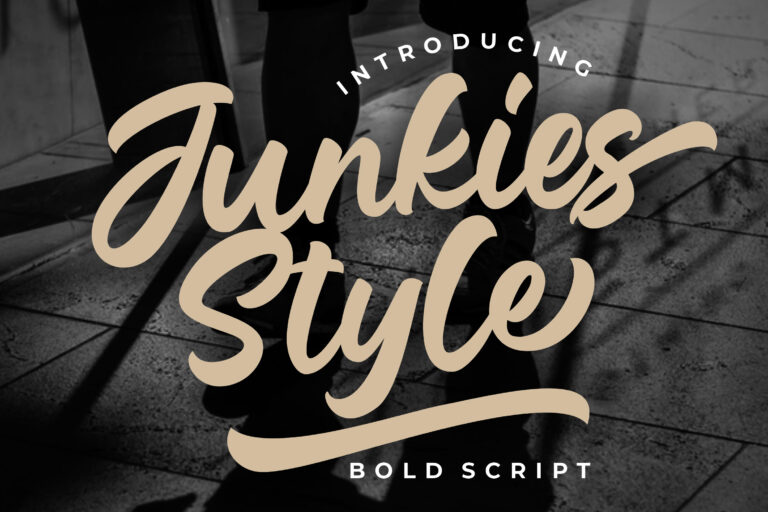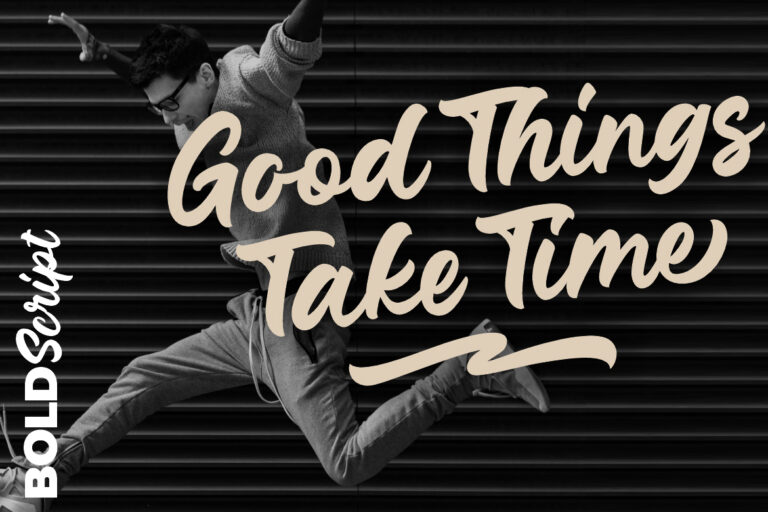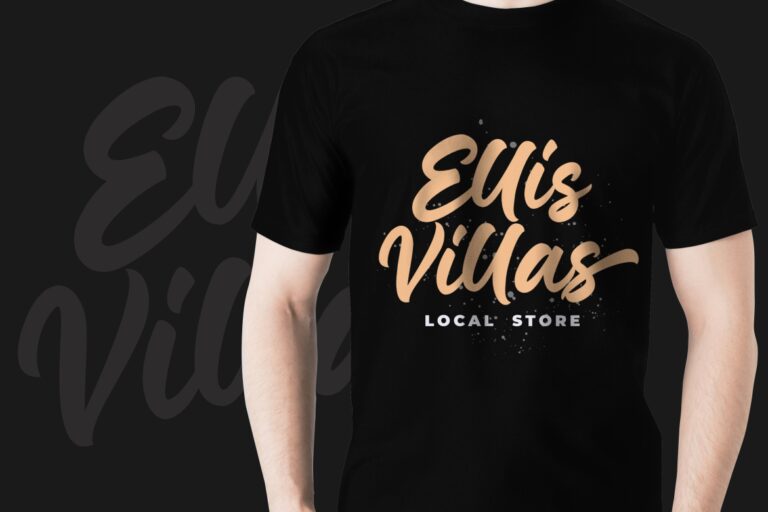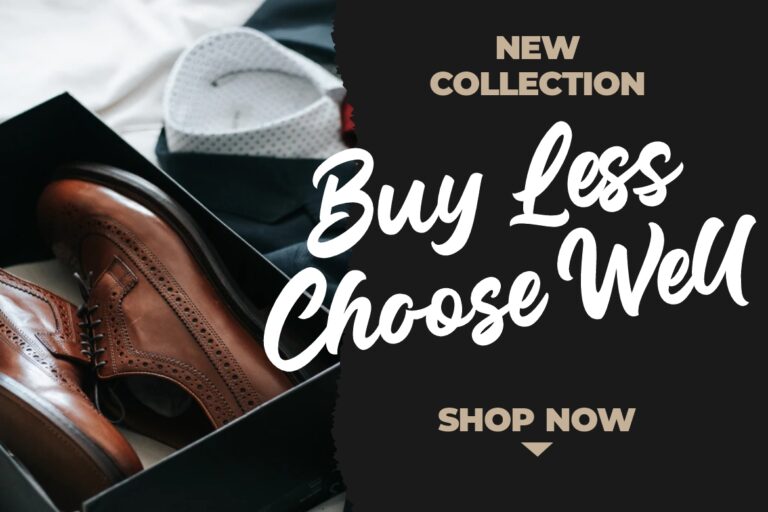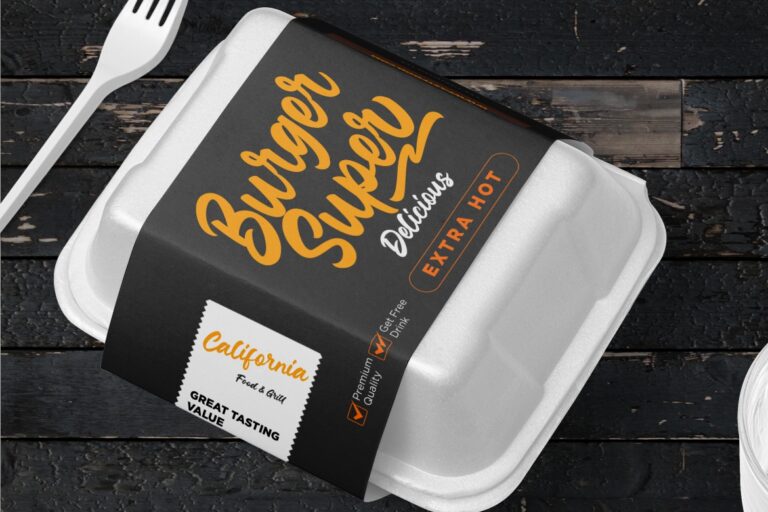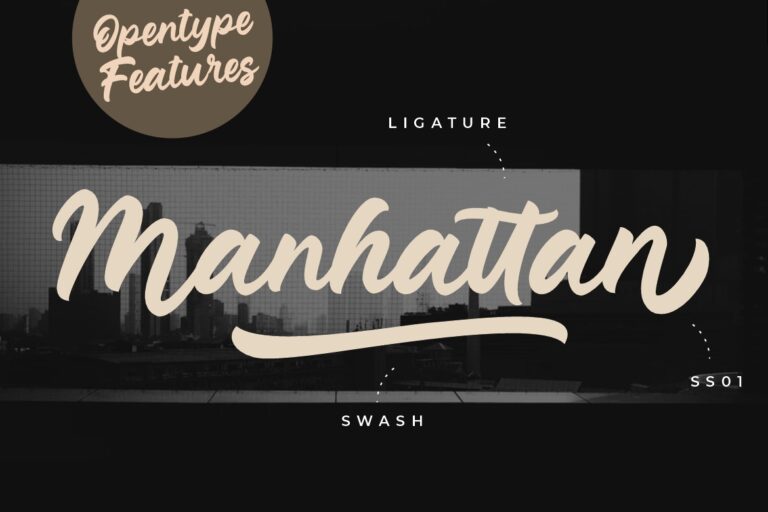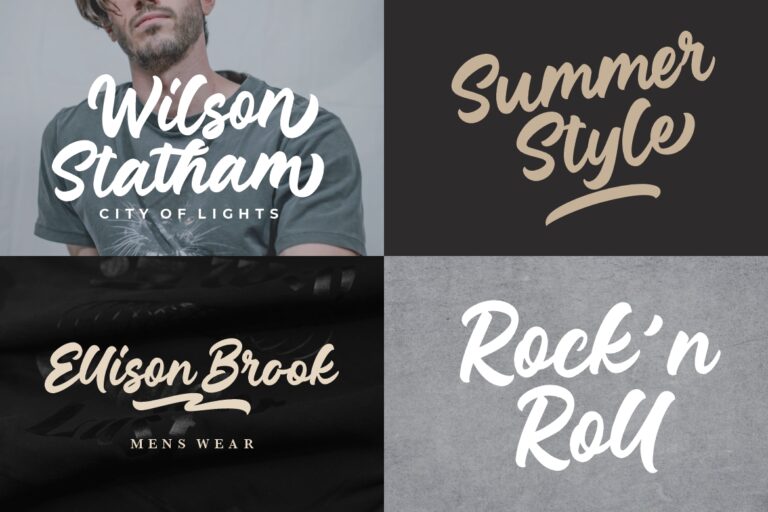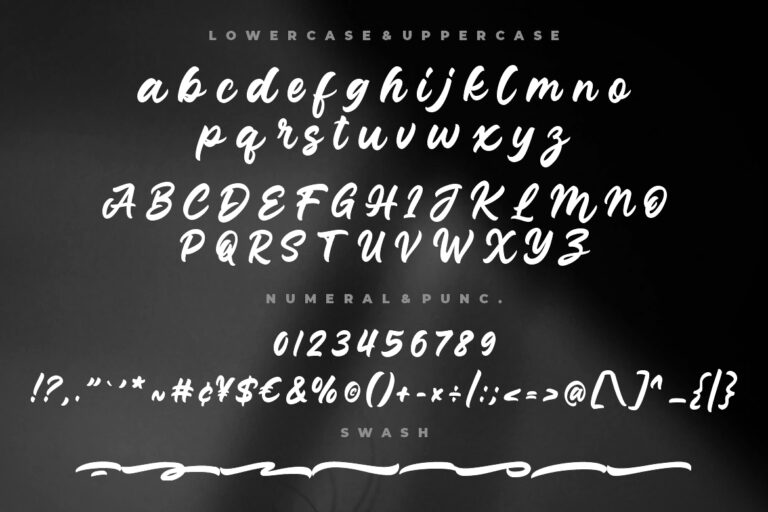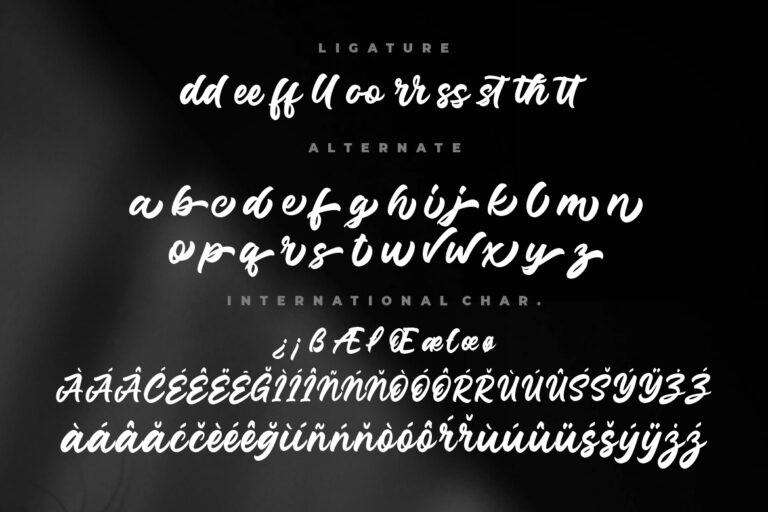
Junkies Style Bold Script
Junkies Style is script bold font that looks stylish, modern and street style for your project.
Junkies Style is perfect for branding projects, logo, wedding designs, social media posts, advertisements, product packaging, product designs, label, photography, watermark, invitation, stationery and any projects that need handwriting taste.
- Ligature, Alternate & Swashes